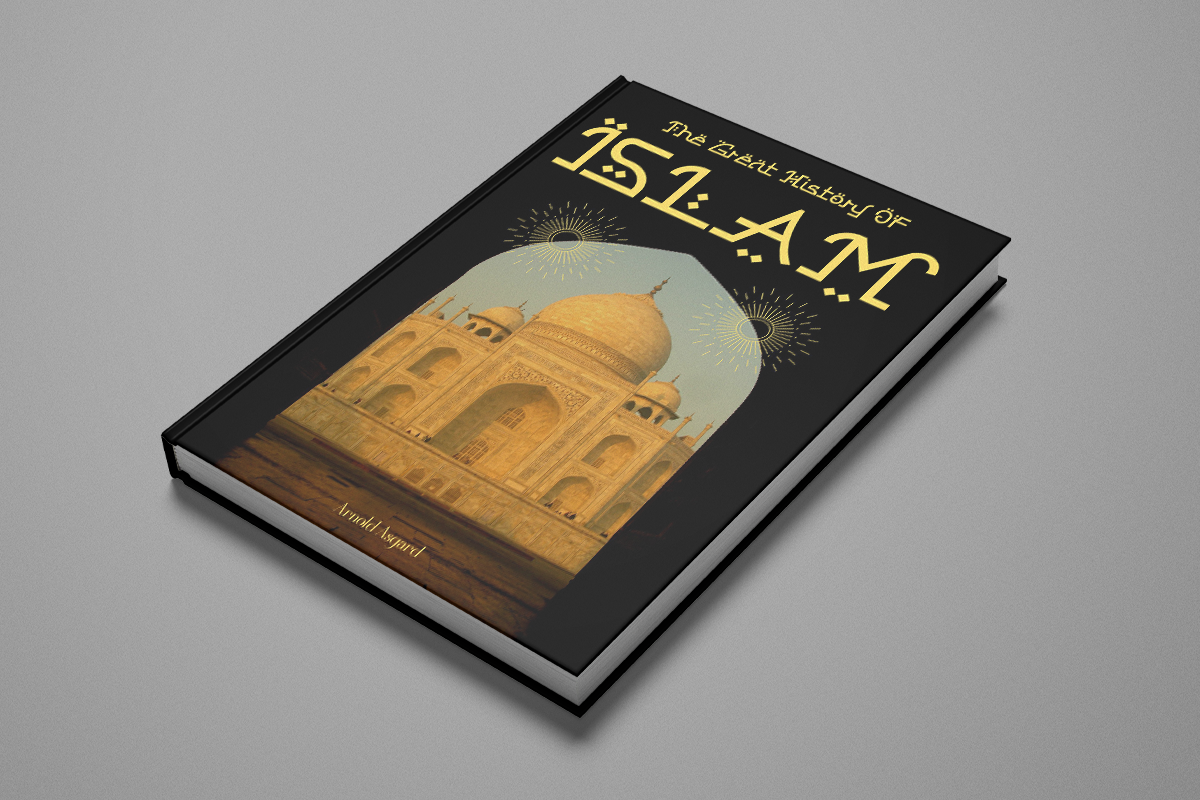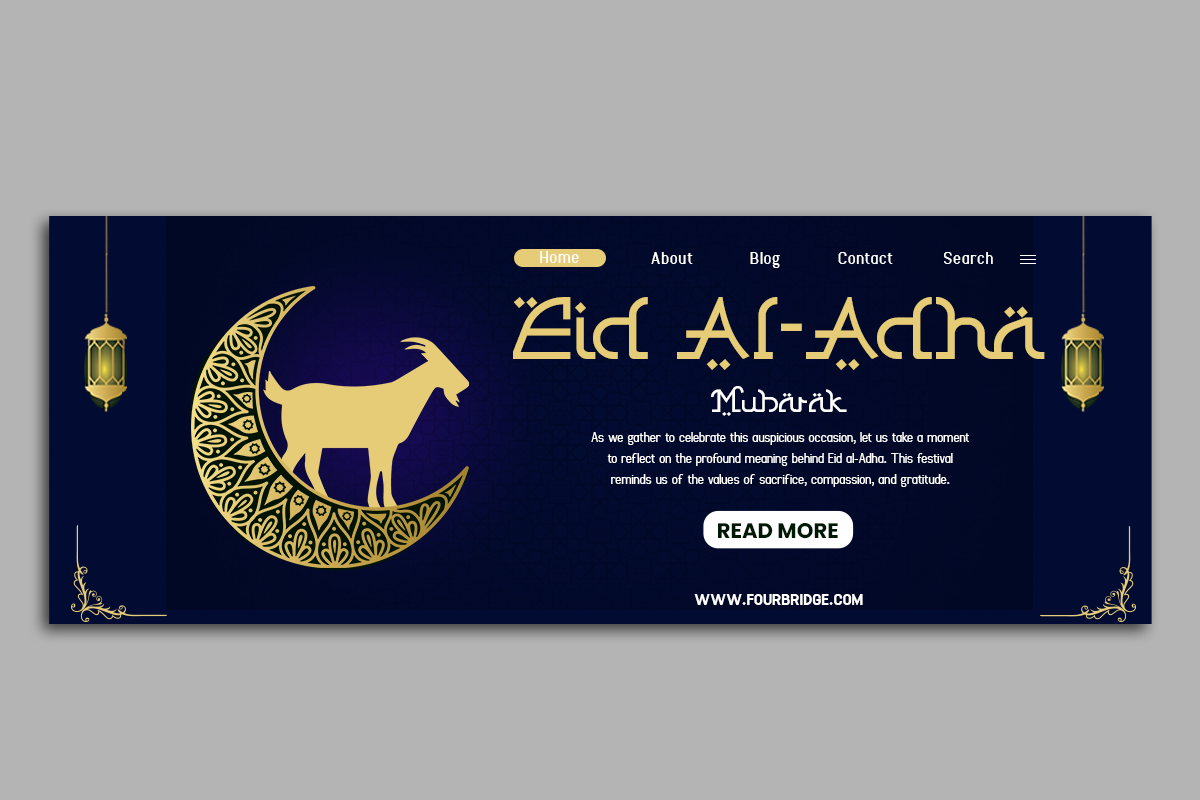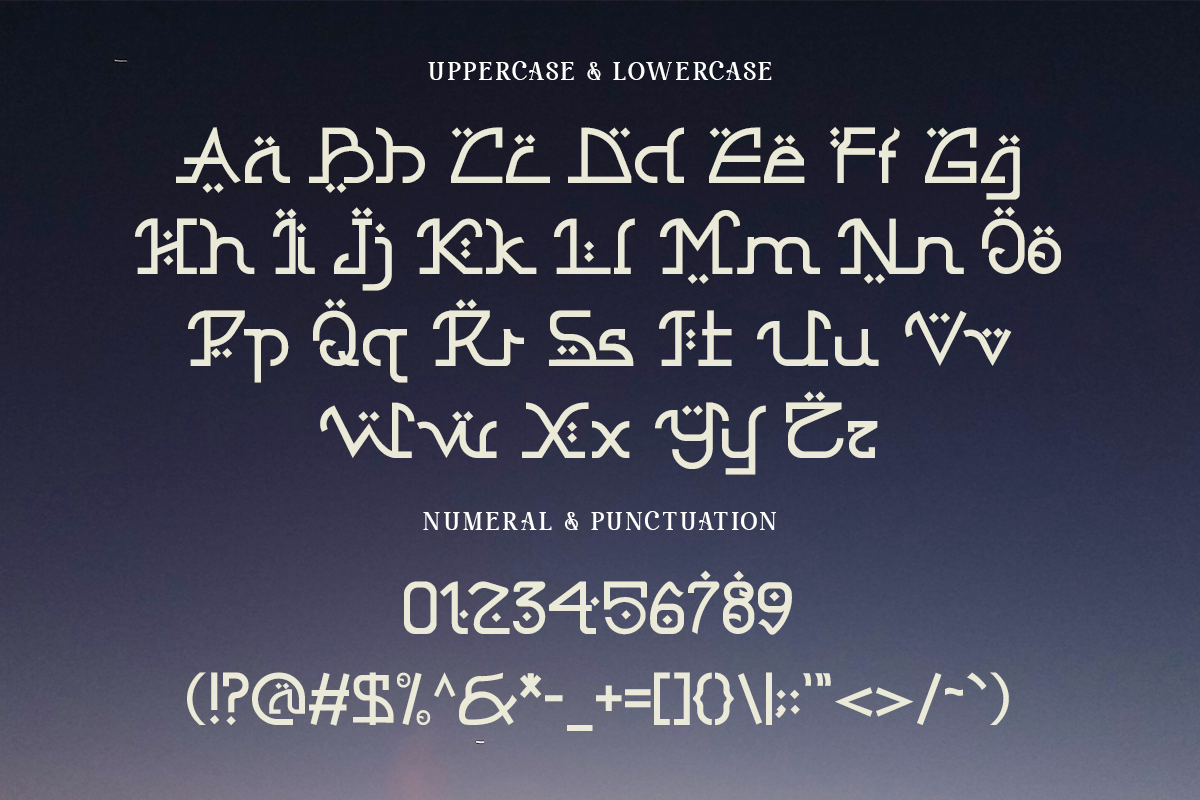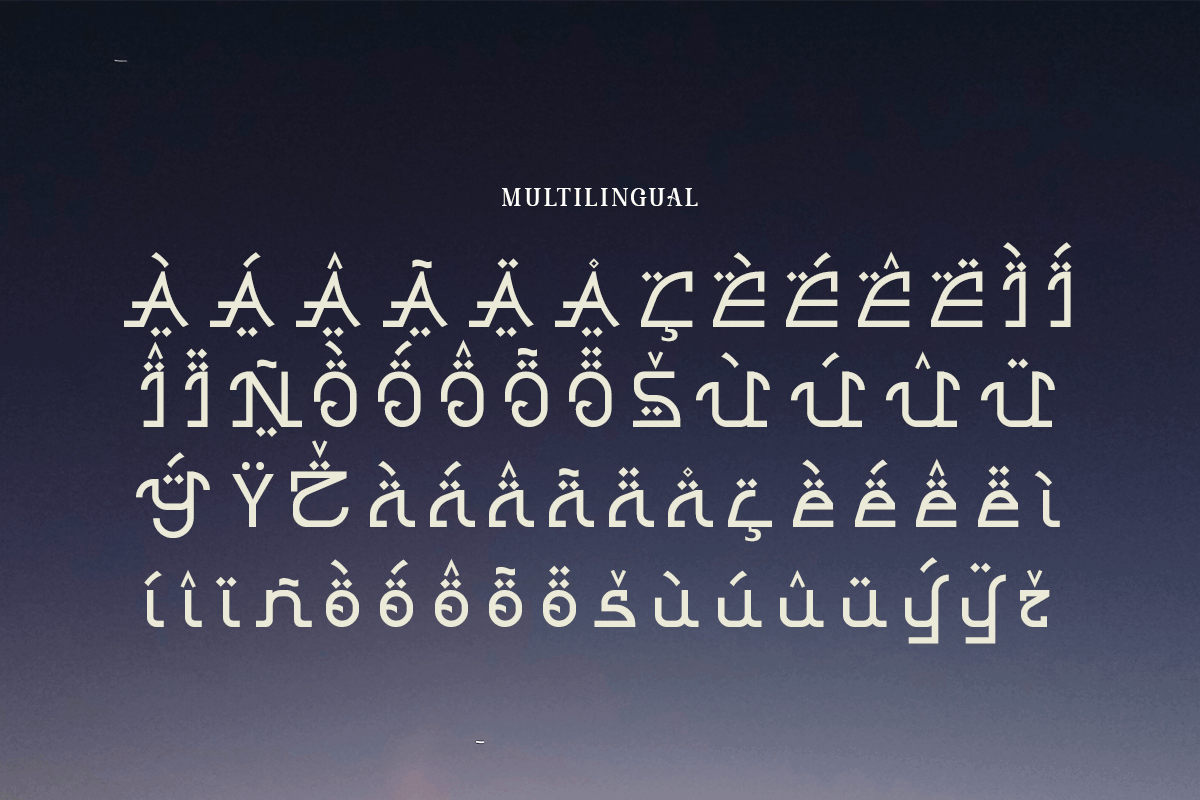
Buhairah A Modern Arabic Font Arabic Modern font, Buhairah A Modern Arabic Font is a combination of modern fonts and Arabic fonts with an elegant and likable appearance. This typeface is so beautiful and shines and is very real. Buhairah A Modern Arabic Font is the best font to use at formal events like weddings, graduation days, or other parties. You can also use it on invitations, letters, souvenirs, or thank you cards. Buhairah A Modern Arabic Font will give everyone who sees it a simple yet elegant appeal. From the explanation of these characteristics and uses, Buhairah A Modern Arabic Font is an elegant font. For other formal events like art exhibitions, you can use our Buhairah A Modern Arabic Font on exhibition titles, team t-shirts, signage, and other items. This font can be applied as a digital font or print font. Combined with the right theme, supporting images, and atmosphere, Buhairah A Modern Arabic Font will radiate like sunlight that illuminates a room. Buhairah A Modern Arabic Font is the best font for Islamic events and Islamic book covers. Our Display fonts collection is used as Figma Fonts, Canva Fonts, Freepik Fonts, and Adobe Fonts. They also work as Windows Fonts and Apple Fonts. For your social media needs, you can use and install fonts in our Script & Signature font collection to use as Instagram Fonts, Facebook Fonts, and Twitter Fonts.